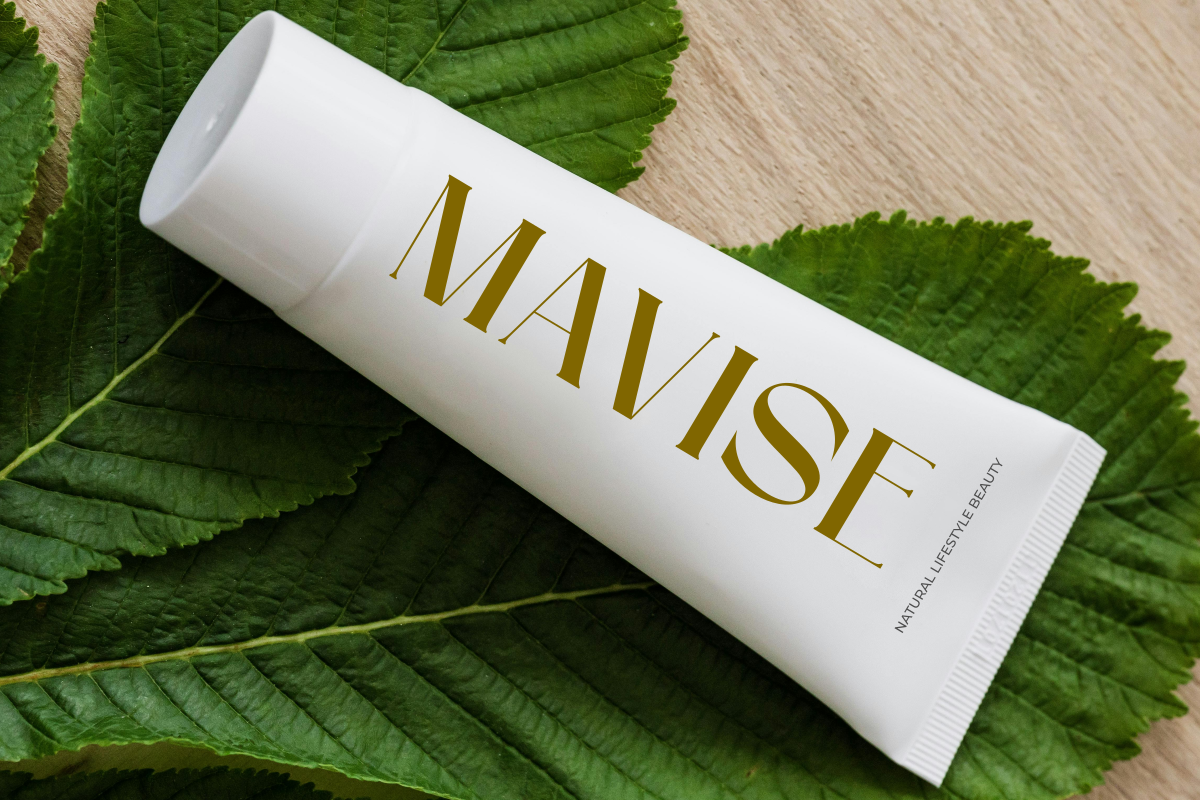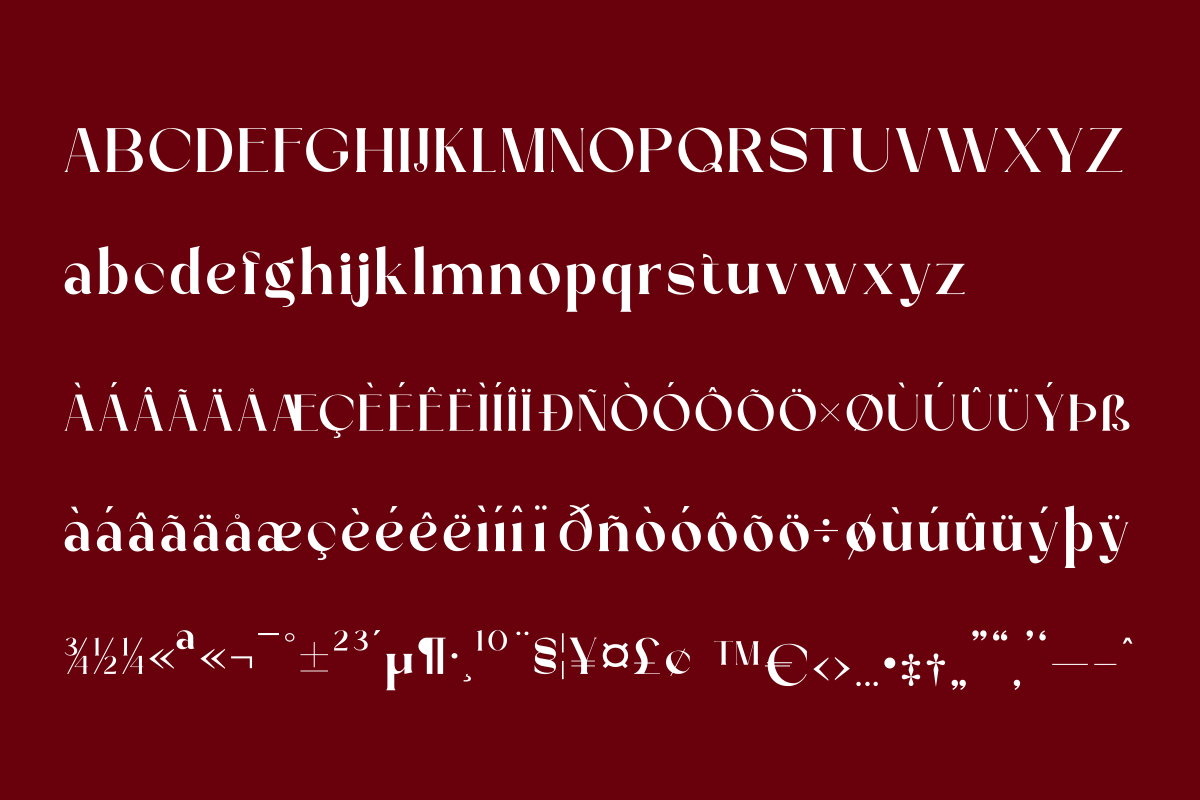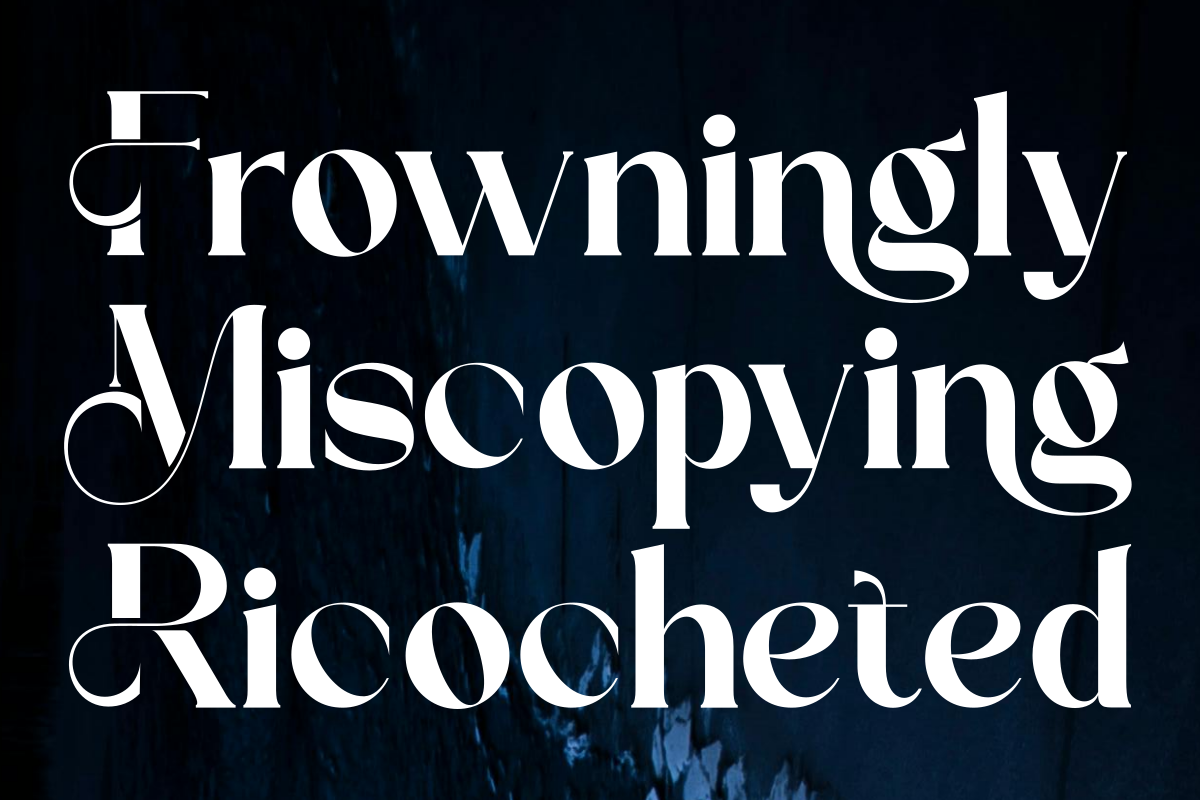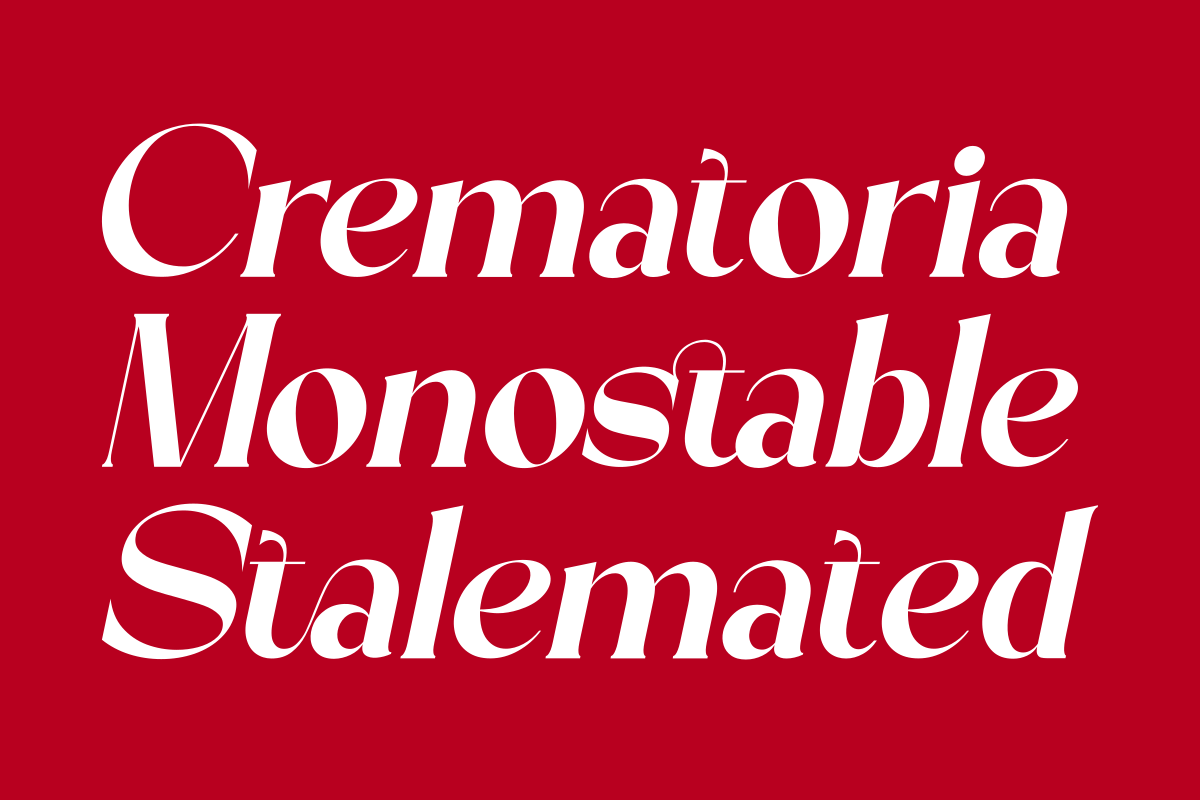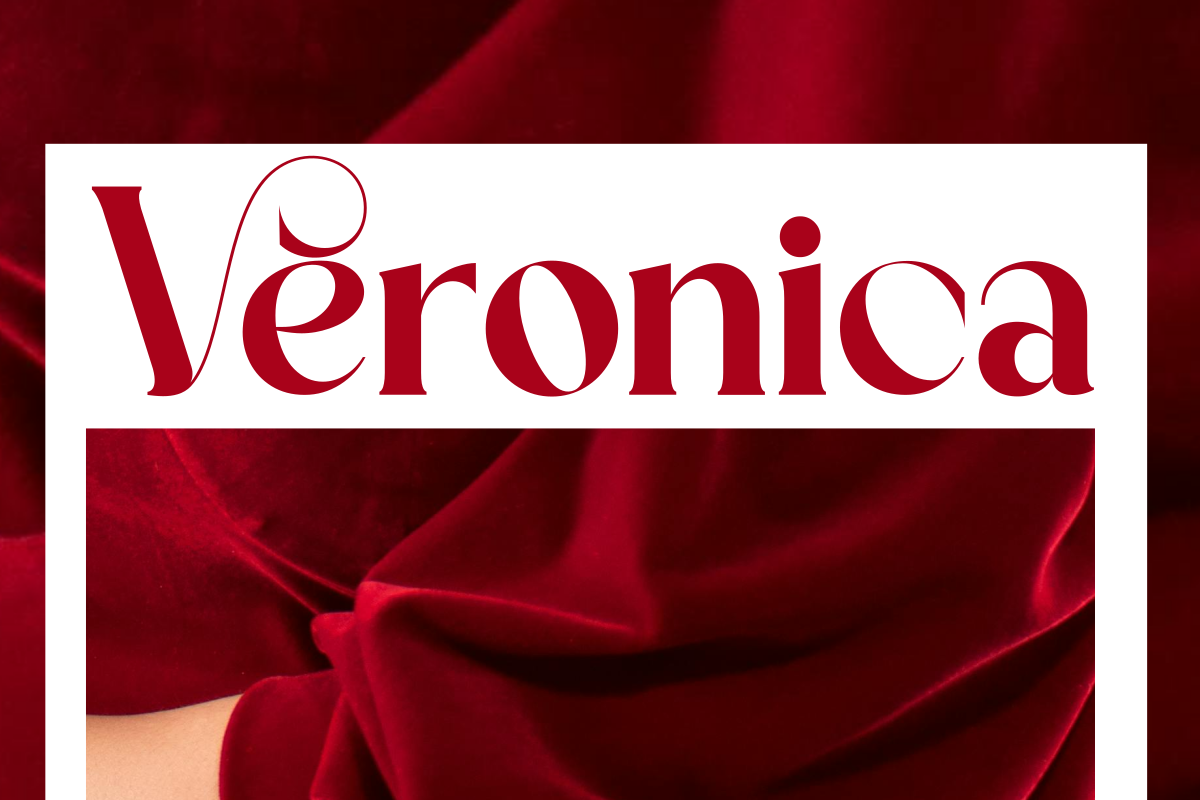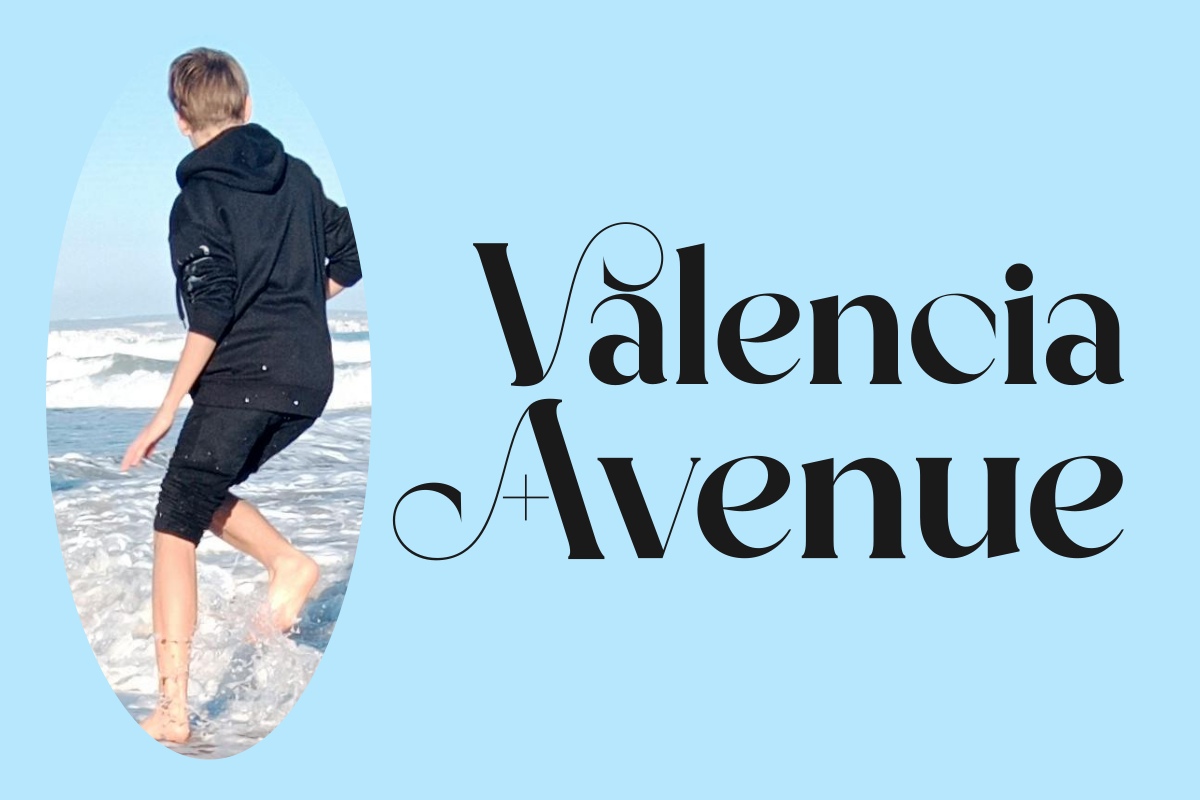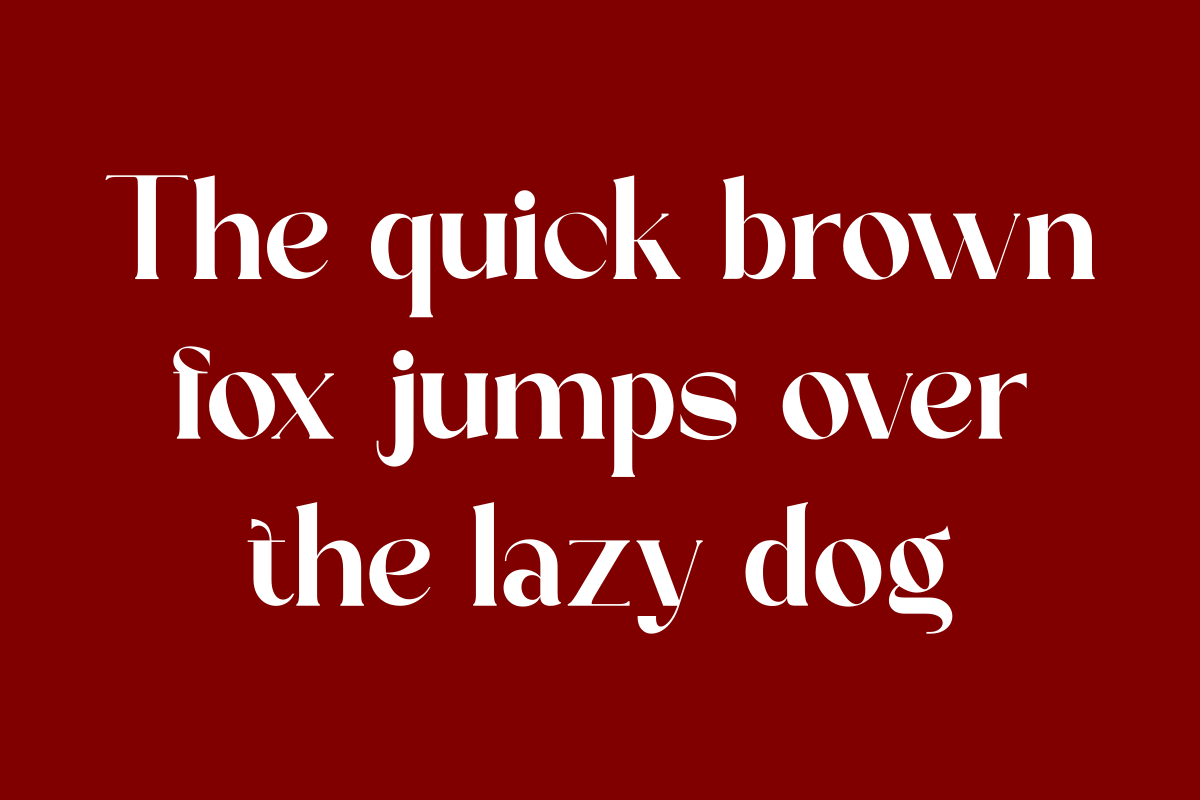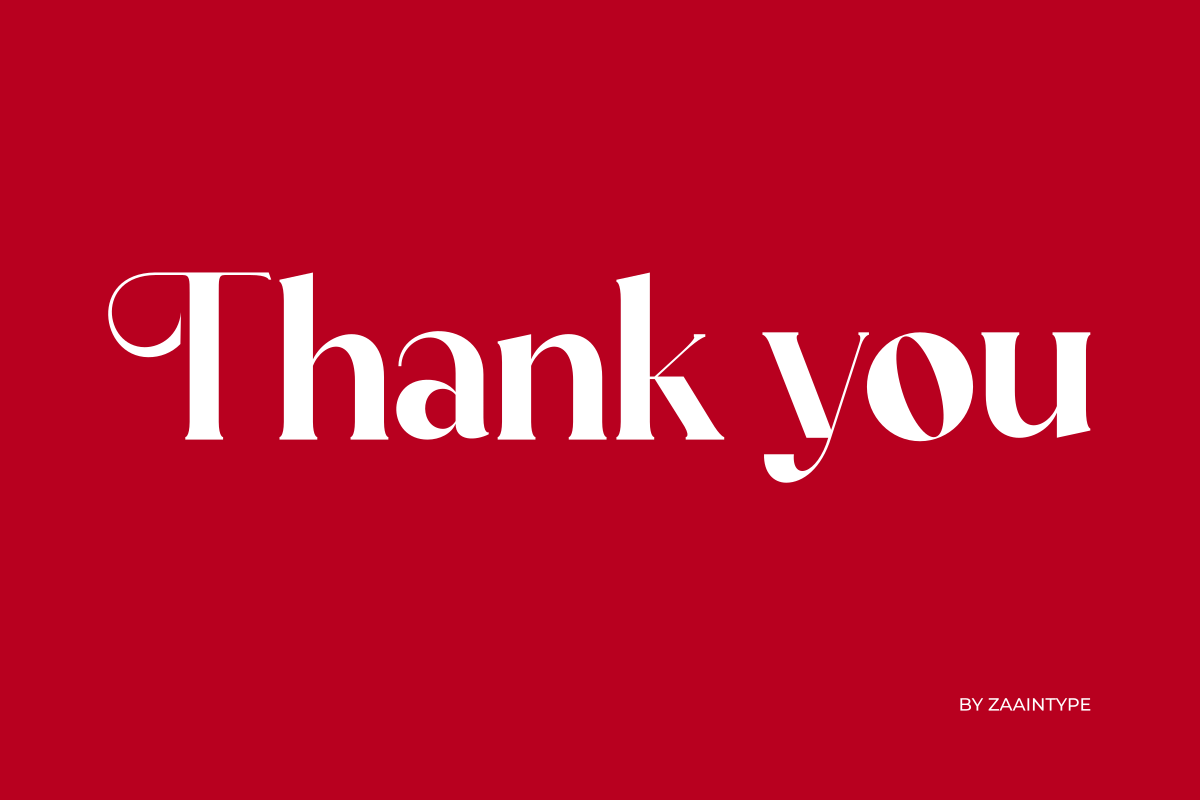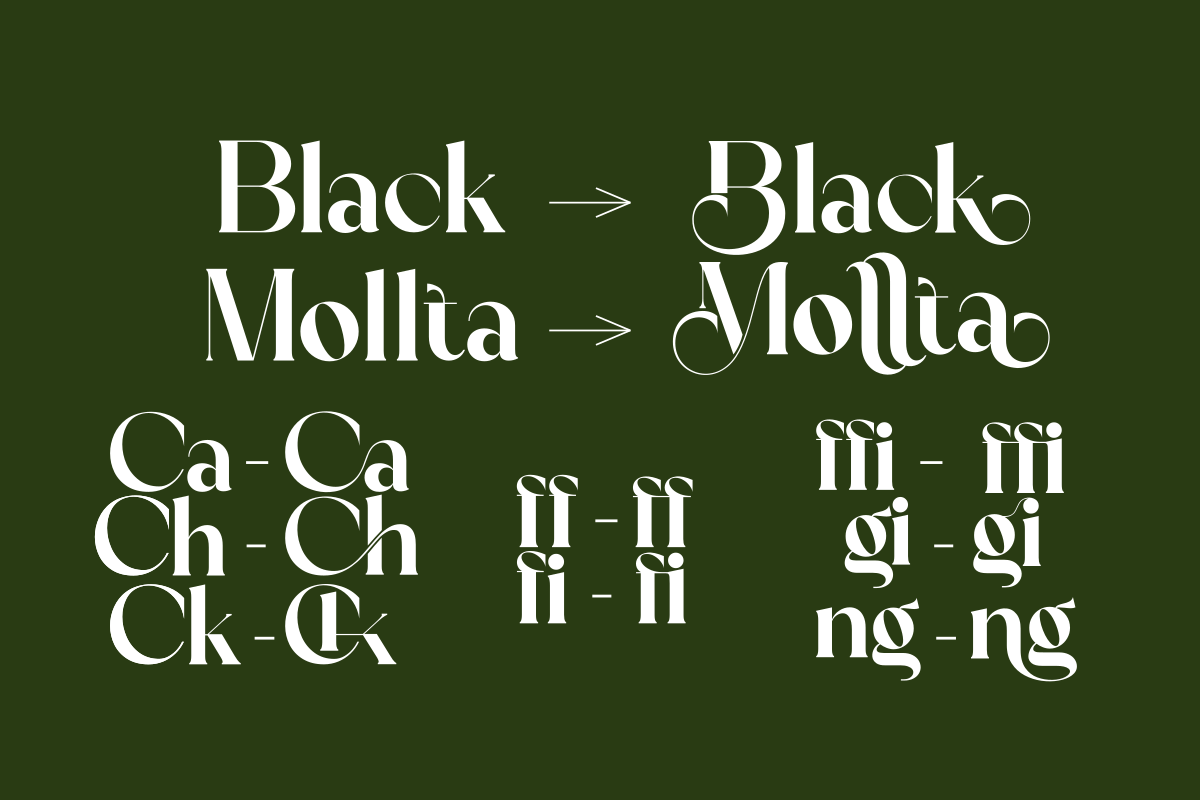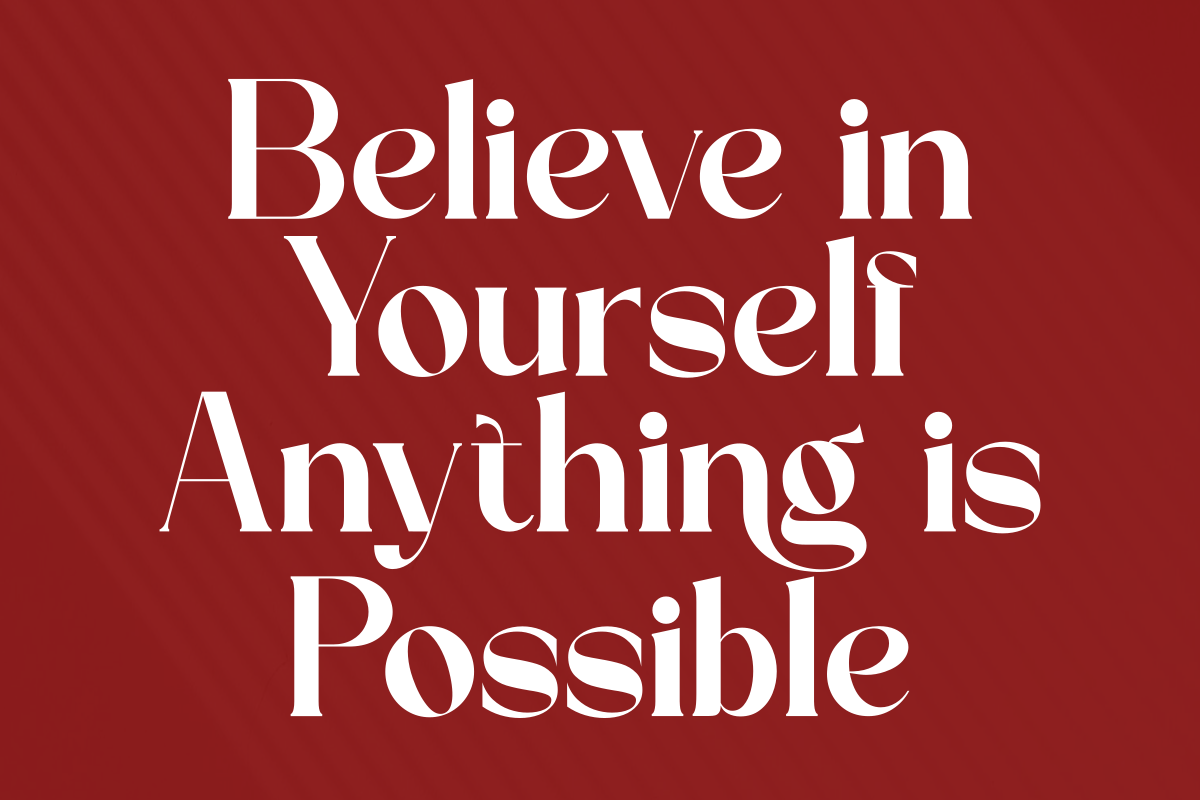
Black Mollta
Black Mollta is a high-contrast serif font that blends classic elegance with a bold modern touch. With its striking thick-thin contrast, this font is perfect for premium branding, editorial, fashion, and luxury design.
Available in two styles:
Regular – A perfect balance of elegance and readability, ideal for main text and headlines.
Oblique – A slanted version that adds a dynamic and stylish feel, perfect for more expressive designs.